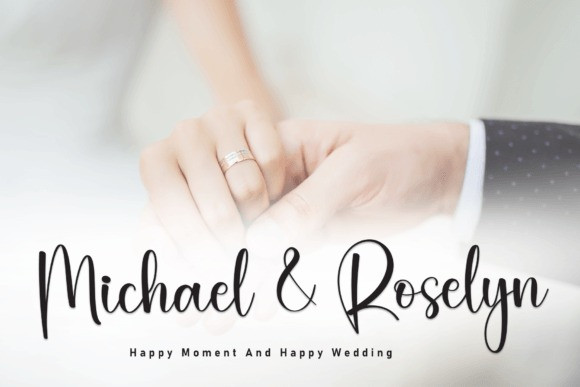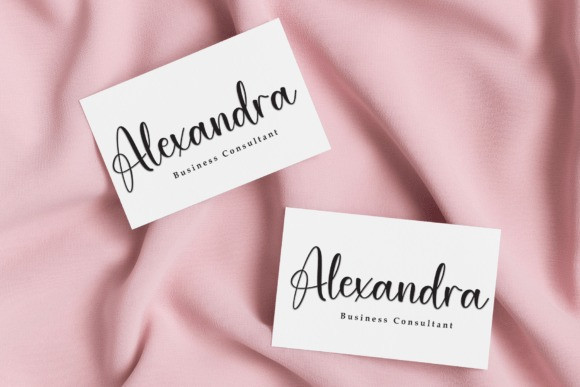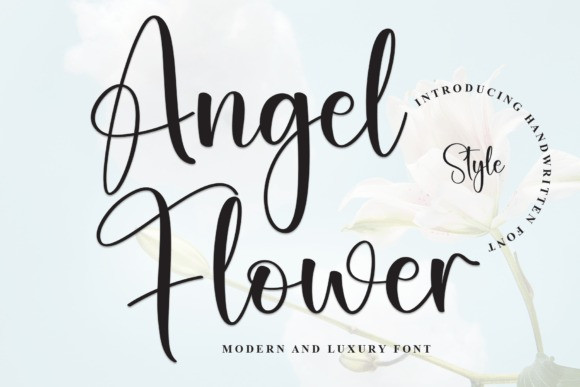
Angel Flower Script Font
Angel Flower Script Font is an enchanting handwritten font. This versatile script font has a wide spectrum of applications ranging from greeting cards to headlines and is guaranteed to add a romantic feel to your next project.